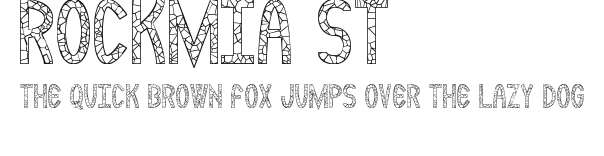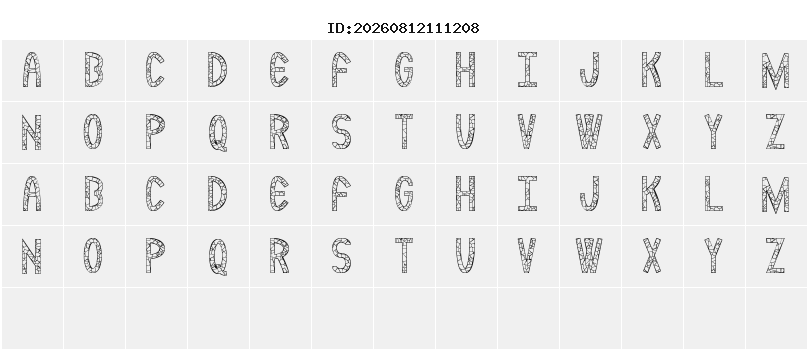
• Font Name: Rockmia St
• Full Font Name: Rockmia St
• Version: Version 1.00 June 14, 2014, initial release
About Rockmia St.ttf
Rockmia St.ttf is a modern, elegant sans-serif font designed for ultimate readability and visual harmony. Perfect for branding, headlines, web design, and print materials.